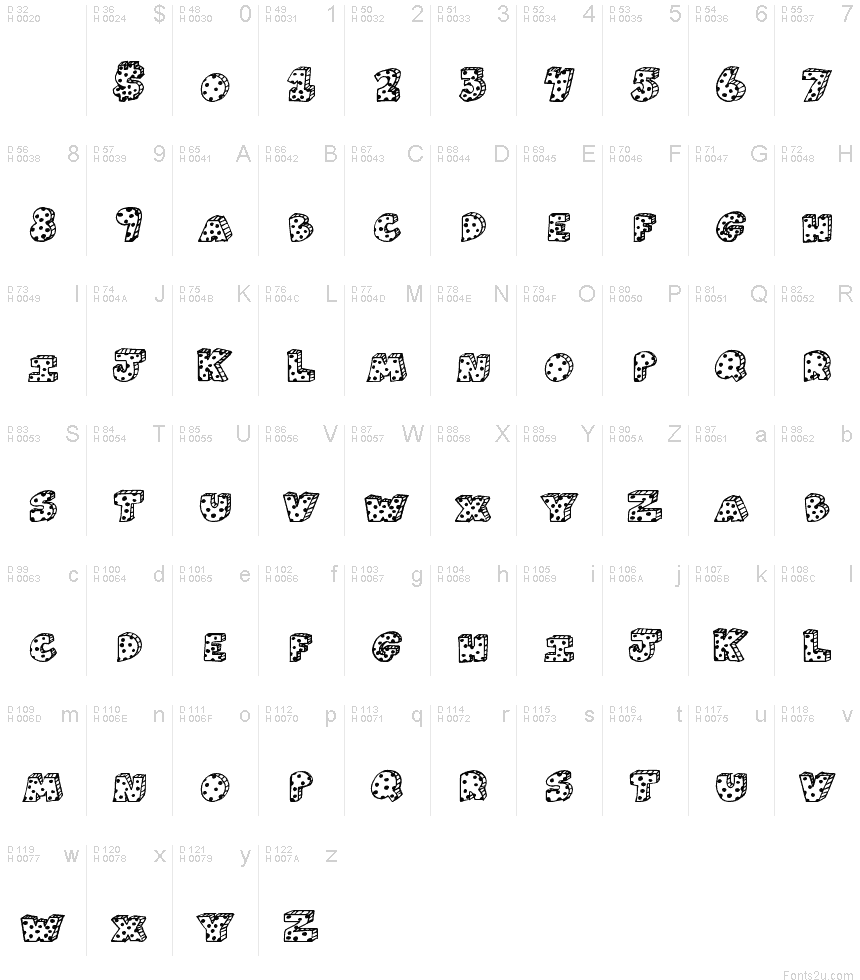
Agenda Clash by Xerographer Fonts is a free cartoon 3D display font with thick, plump, irregular letters and an exuberant hand-drawn outline. Dense polka-dot interiors give the broad forms a spotted, almost fabric-like surface. Striped side panels create conspicuous cutout depth that shifts from letter to letter.
It can turn lettering into an illustrated centerpiece for children's entertainment, festive party posters, and colorful candy packaging. Its dots and sketchy edges also suit playful merchandise and comic publishing, especially when the type becomes part of a larger repeating pattern or character scene. Its strongest role is illustrated lettering for cheerful youth-focused projects.
Agenda Clash from Xerographer Fonts is a free 3D display font.